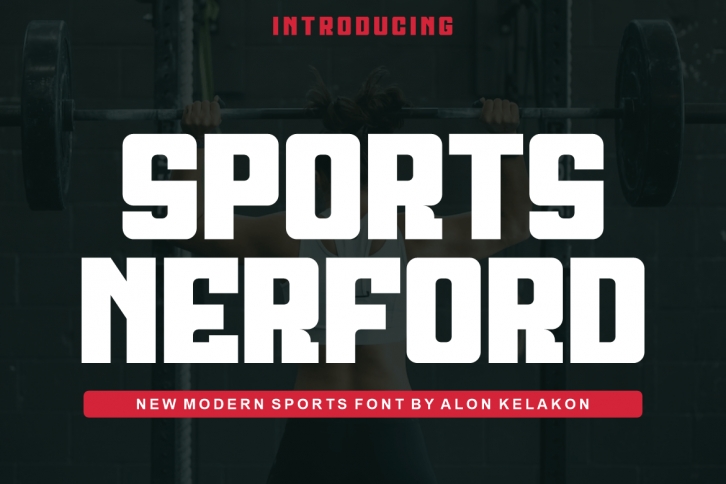
Sports Nerford is a cool and bold display font. Its natural and unique style makes it incredibly fitting to a large pool of designs. The only limit is your imagination!